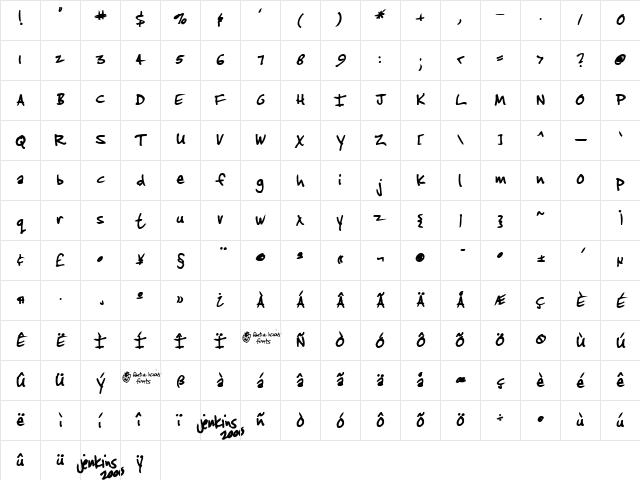
Complete Jenkins v2.0 Thik glyph index. Displaying only characters natively supported by Jenkins v2.0 Thik font.
Jenkins v2.0 is a composed and adaptable typeface that performs quietly and consistently across a wide range of design contexts.